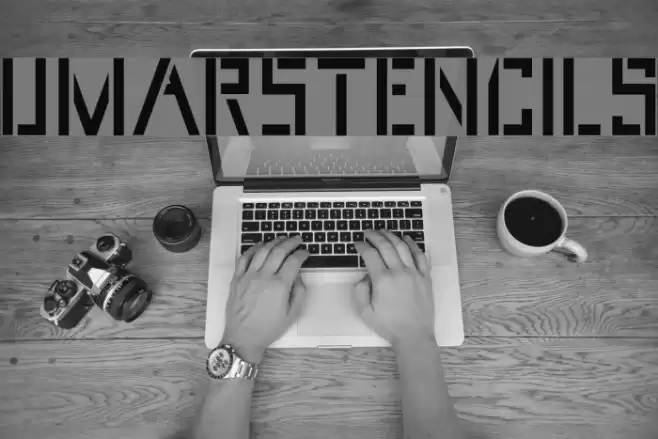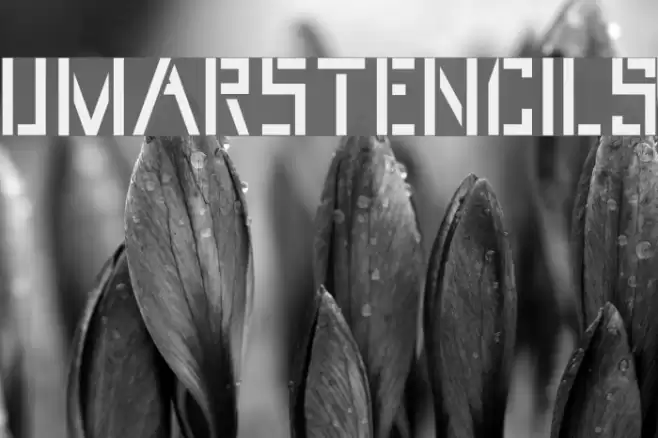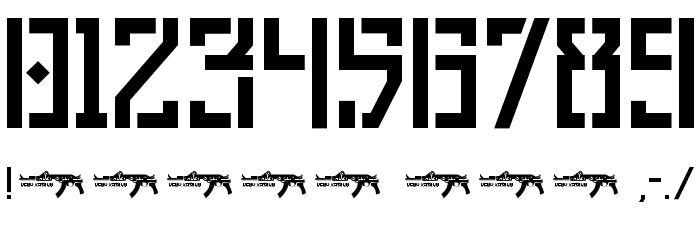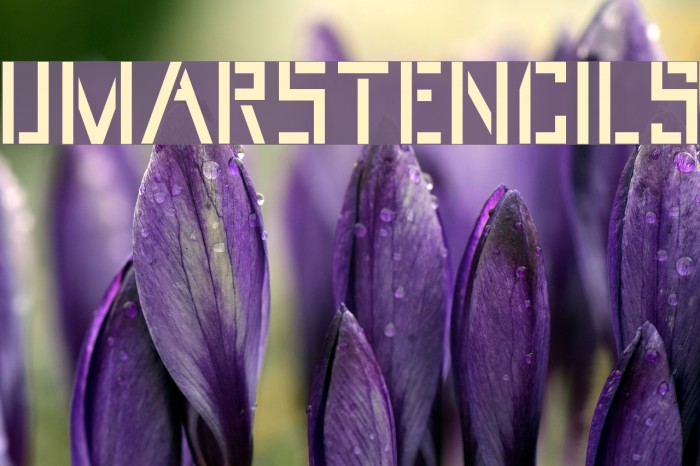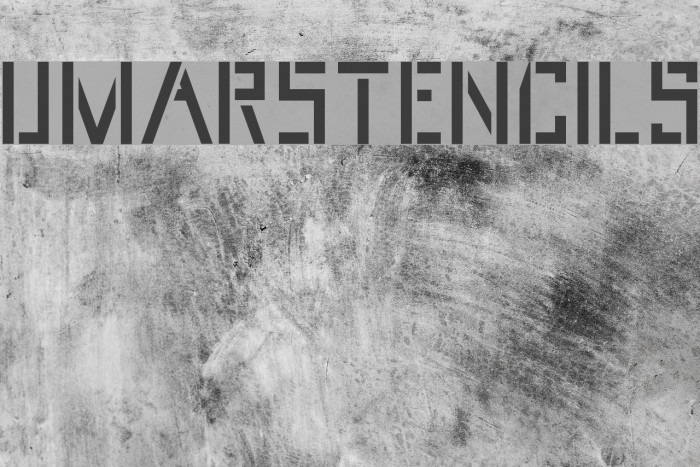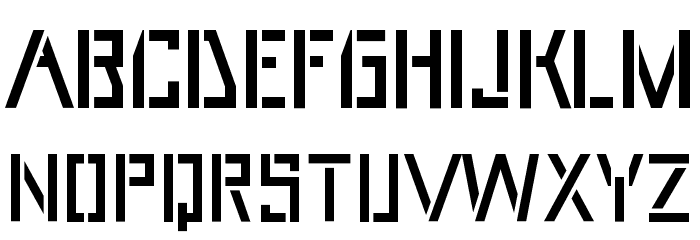
UmarStencils Font
UmarStencils Description
This font features a bold, stencil-like design with sharp, angular edges and a geometric structure. The characters are constructed with solid, block-like shapes that give a sense of strength and industrial utility. The uppercase letters are uniform in height, while the numbers maintain a consistent width, enhancing readability. The font's distinct cut-out sections within each character create a striking visual effect, reminiscent of military or industrial stencils. This style is ideal for projects requiring a rugged, utilitarian aesthetic.
A bold, geometric stencil font with angular edges and cut-out sections from Uncategorized fonts.
- Proposed Projects: Ideal for military-themed designs, industrial branding, signage, and posters requiring a strong, utilitarian look.
- Overall Style: Industrial, Rugged
- Use Case: Headlines, Logos, Signage